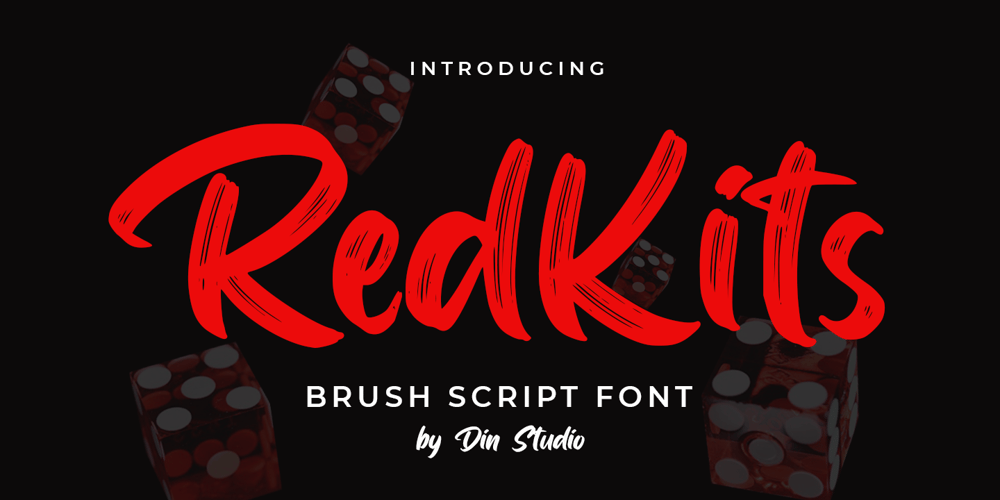
Redkits Font Family was designed by Donis Miftahudin and published by Din Studio. Redkits contains 1 styles and family package options. RedKits is a beautiful brush font. The handwritten combined with brush font will make your design project more attractive. Made for any professional project branding. It is the best for logos, branding and quotes.Features: Multilingual Support PUA Encoded Numerals and Punctuation Thank you for downloading from Din Studio.